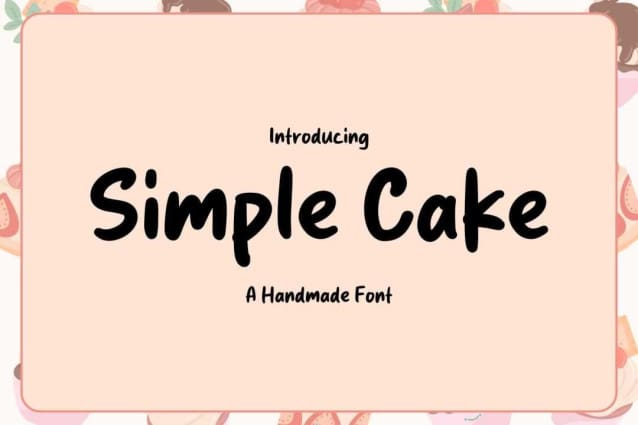
Simple Cake Font
Simple Cake Font is your best comic cartoon font ever! You’ll love it! It will elevate a wide range of design projects to the highest level. You can use this font for many design ideas such as stickers, t-shirt designs, amazing logo designs, magazine or book covers, comics, cartoon drawings, and many more. This font will add a cool touch to your designs!